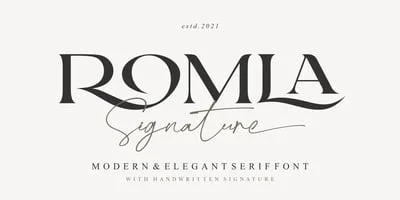
Romla Font
Romla Font is perfect for branding projects, logo design, wedding invitations, social media posts, advertisements, product packaging, product designs, labels, photography, watermarks, invitations, stationery, and any project that needs a handwriting taste.
What makes Romla Font exciting is its elegant hand-lettered style that brings a personal, authentic touch to any design project. The flowing letterforms create a sophisticated yet approachable aesthetic that captures attention while maintaining excellent readability. Its versatile character makes it suitable for both formal and casual applications, allowing designers to create memorable visual experiences that resonate with their target audience.
Romla Font family includes regular weight with full alphabet coverage, numbers, punctuation marks, and special characters. The typeface features carefully crafted ligatures and alternate characters that enhance the natural flow of text, making it appear as if written by hand with professional calligraphy skills.
Whether you're working on luxury brand identity, romantic wedding materials, or modern marketing campaigns, Romla Font offers the perfect solution for designers seeking to add personality and warmth to their typography choices. The font's unique characteristics make it stand out in crowded marketplaces while maintaining the professional quality that clients expect. Download this beautiful typeface today and discover how it can transform your creative projects with its distinctive charm and versatile application possibilities across various design mediums.